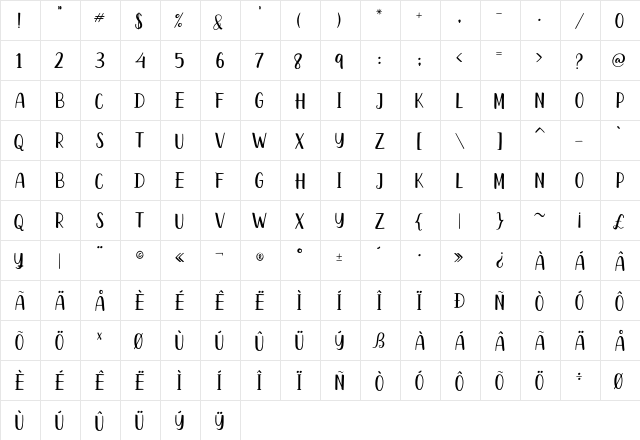
Heathens Sans Regular
Design Context for Heathens Sans Typeface
Heathens Sans is a composed and adaptable typeface that performs quietly and consistently across a wide range of design contexts.